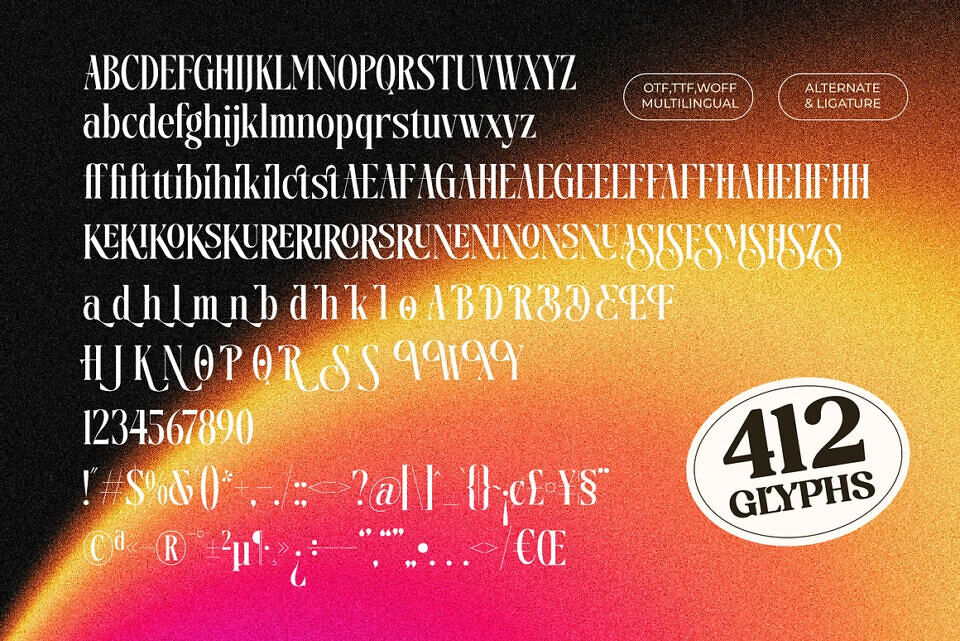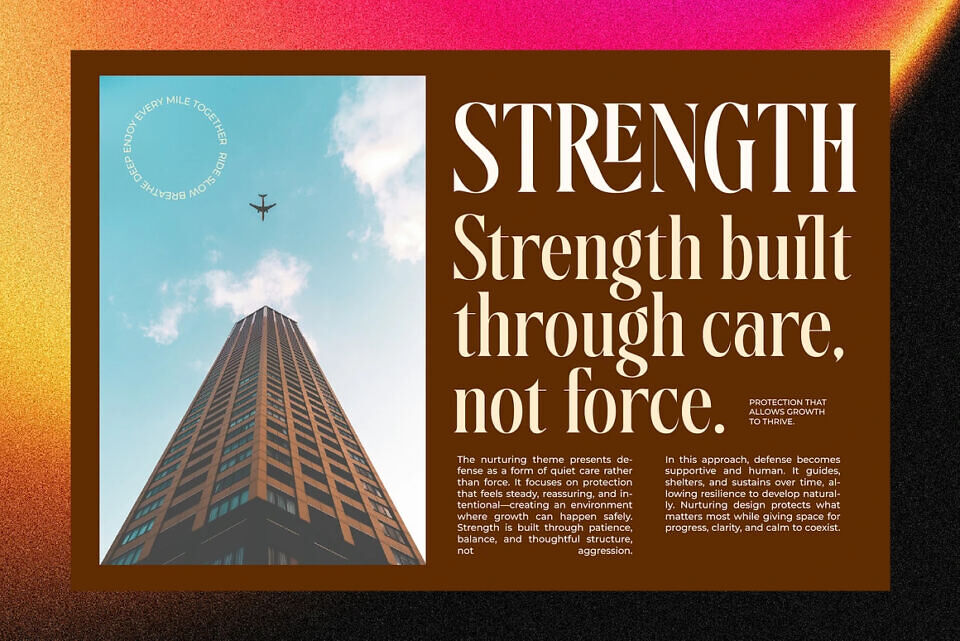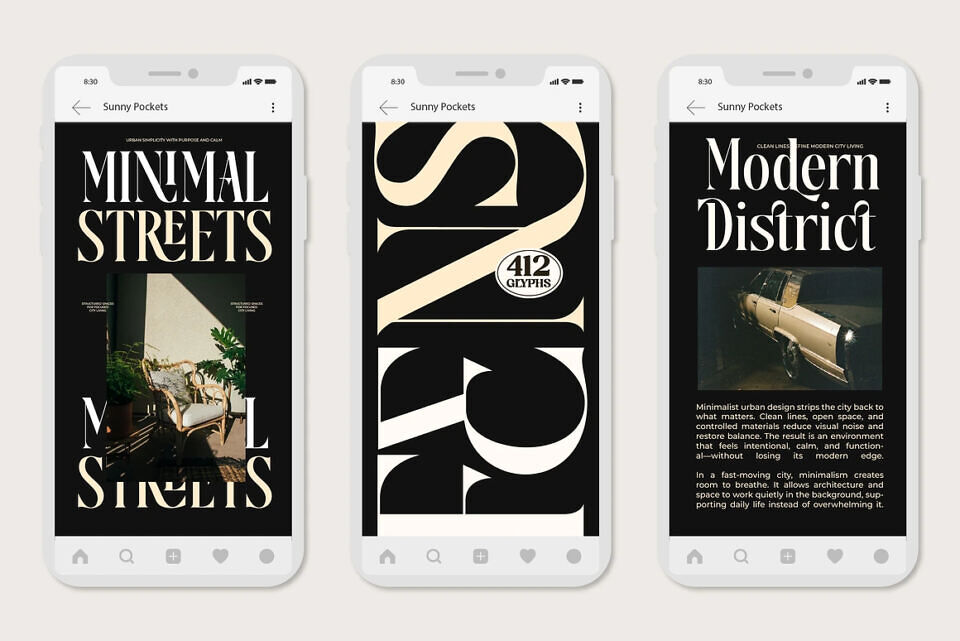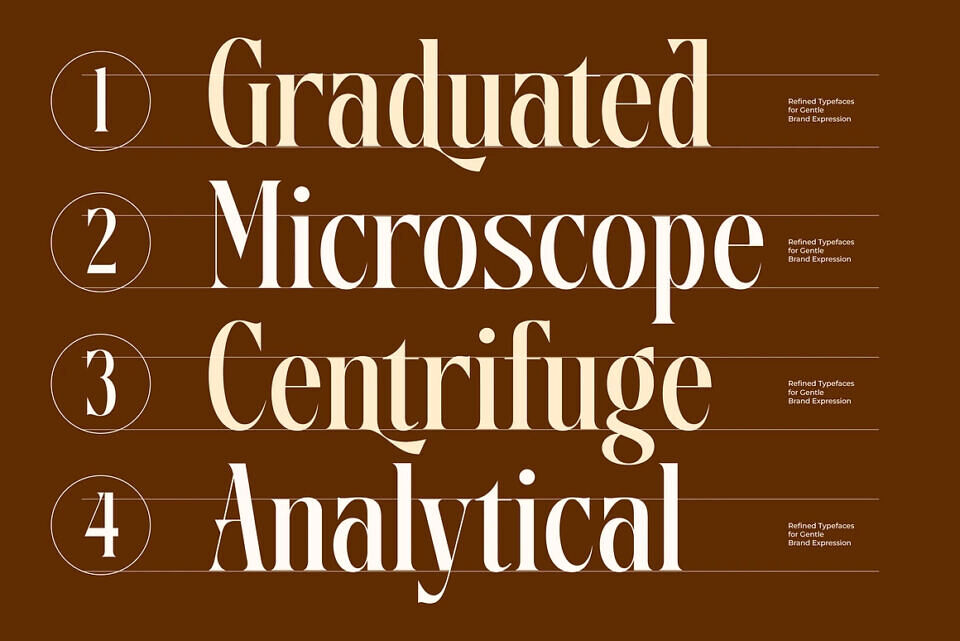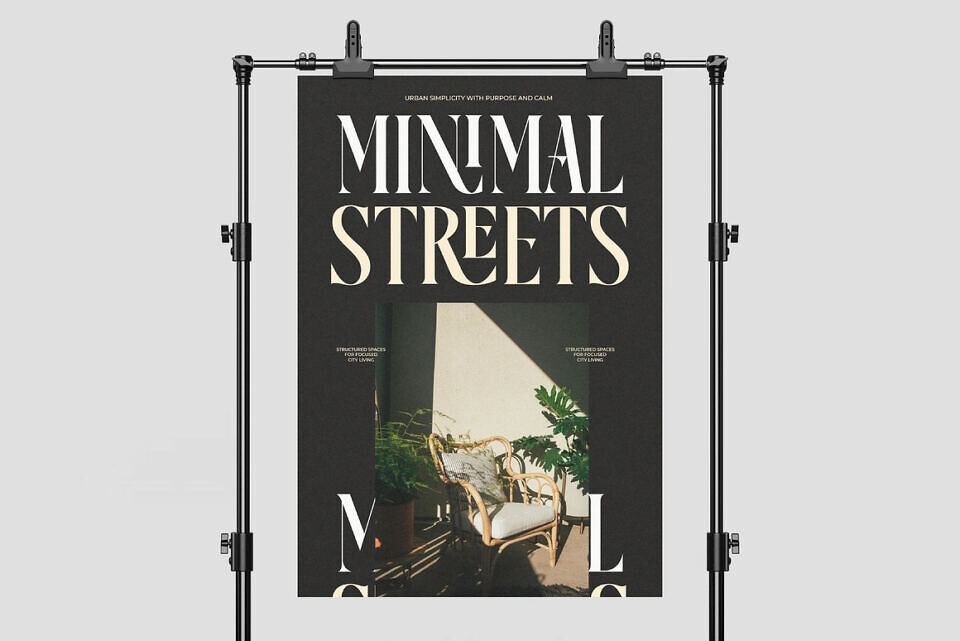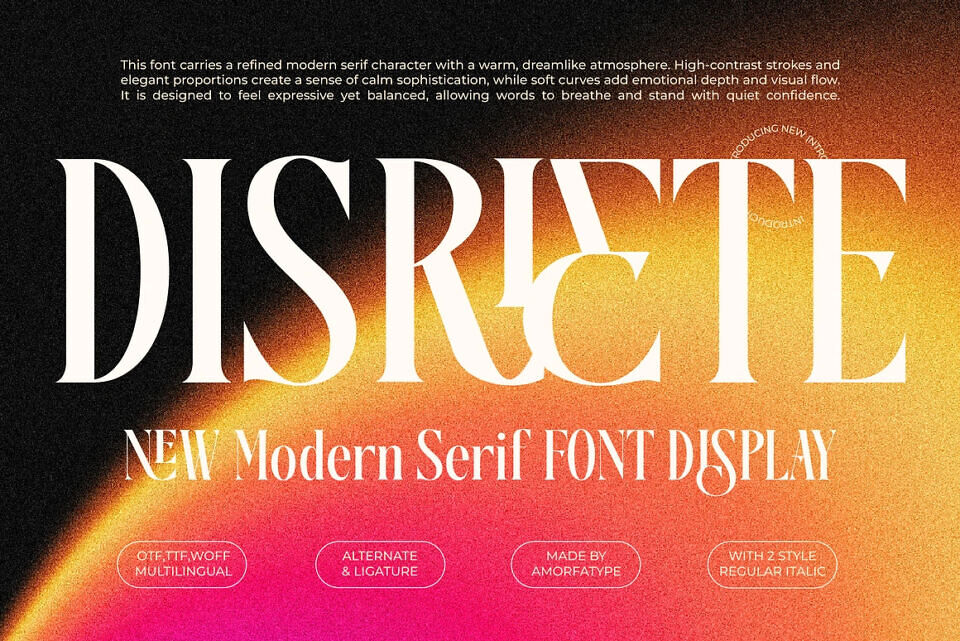
Disriete Font
Disriete is a modern serif display font designed to deliver strong visual presence with refined elegance. Built with clean structures, confident proportions, and contemporary serif details, Disriete balances modern clarity with expressive character.
Its distinctive letterforms make it ideal for impactful typography that feels bold, stylish, and professional at the same time.